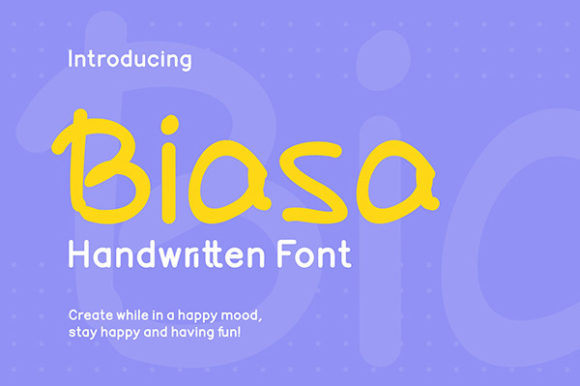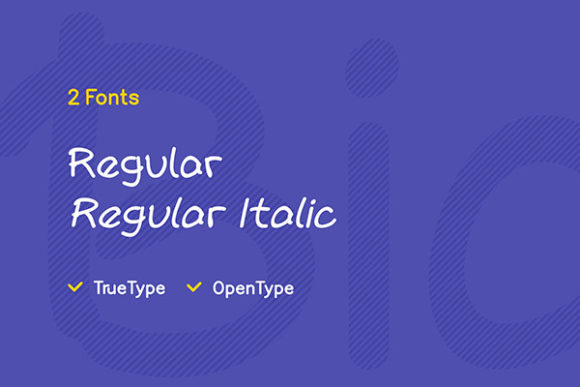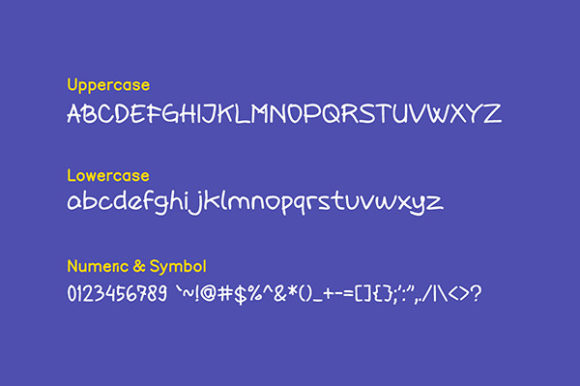
Biasa Font
About Biasa Font
Biasa is a cute, simple and adaptable script font, that can be used for all chalkboard quotes or teaching material! Its authentic look and feel will add a personal and realistic feel to your designs.